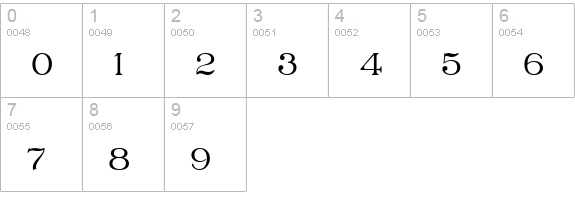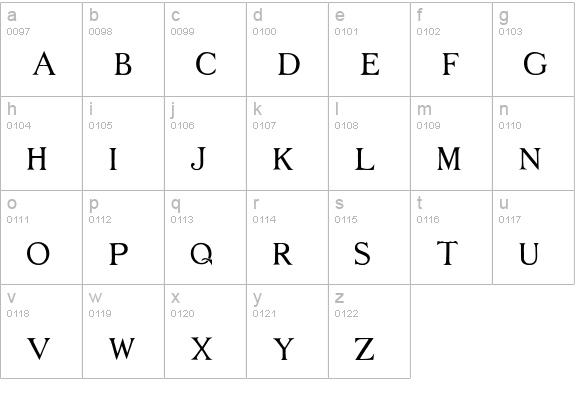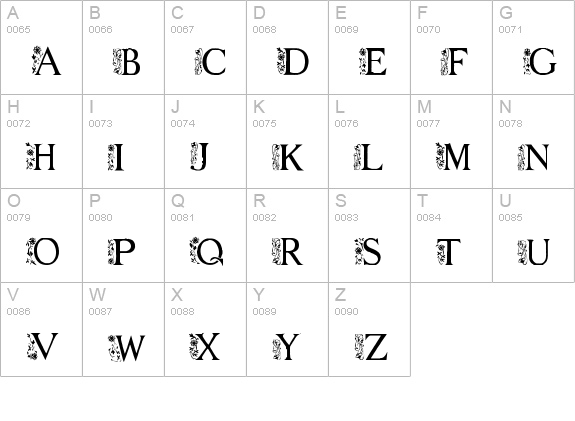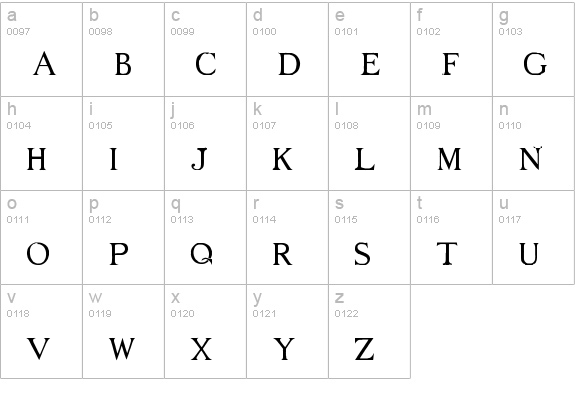
FLOWER GARDEN is a whimsical and charming font that encapsulates the beauty and elegance of a blooming garden. Its delicate and graceful letterforms are reminiscent of petals gently swaying in the breeze, evoking a sense of tranquility and joy. Perfect for adding a touch of natural beauty to your designs, FLOWER GARDEN is a versatile font that can be used for various projects such as invitations, greeting cards, posters, and more. Best of all, FLOWER GARDEN font is available for free download at FontsMarket.com. Embrace the enchanting allure of a flower garden with this delightful font that will surely bring a touch of nature's magic to your creations. Let your imagination bloom with FLOWER GARDEN font today!